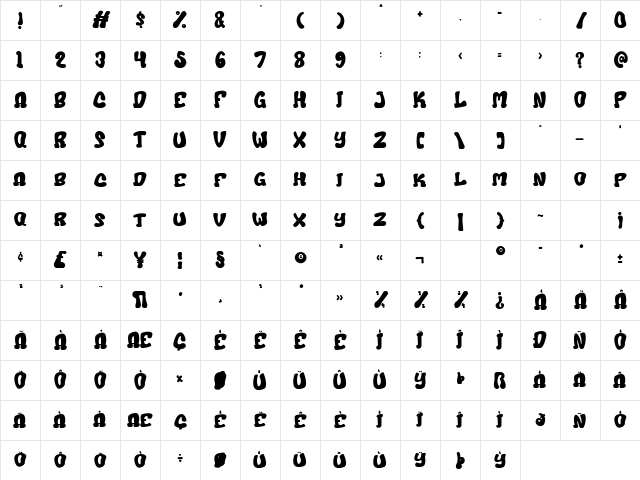
Sunday Cake Regular
Complete Sunday Cake Regular glyph index. Displaying only characters natively supported by Sunday Cake Regular font.
Design Context for Sunday Cake
Sunday Cake is a composed and adaptable typeface that performs quietly and consistently across a wide range of design contexts.
Pro Tip: Use Sunday Cake in both headline and body roles to test its range before committing to a single application.